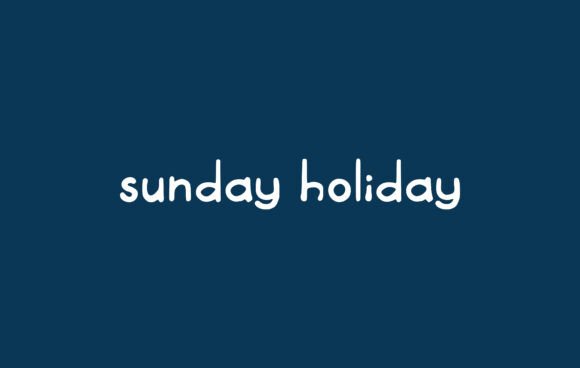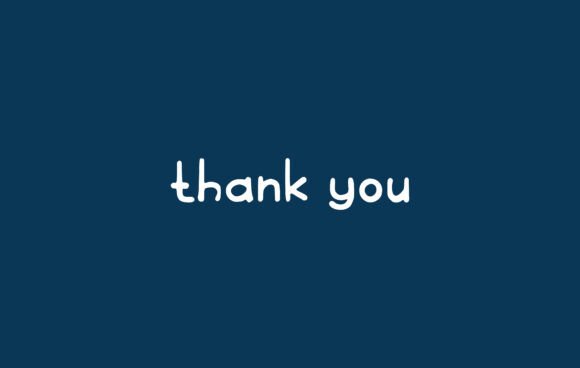
Hello Butterfly Font: Elevate Your Designs with a Romantic Touch
Are you looking for a font that can add a touch of romance and elegance to your designs? Look no further than the Hello Butterfly font. This authentic handwritten font is expertly designed to capture the hearts of designers and crafters alike. With its unique blend of sophistication and playfulness, Hello Butterfly font is sure to become a true favorite in your design arsenal.
What Makes Hello Butterfly Font Special?
Hello Butterfly font is more than just a beautiful font – it’s a design solution that can elevate your creative ideas to new heights. Here are just a few reasons why this font stands out:
- Romantic Touch: The Hello Butterfly font has a distinctly romantic feel that’s perfect for designs that require a touch of elegance and sophistication.
- Legibility: This font is not only beautiful, but also highly legible, making it perfect for use as both title and body text.
- Versatility: Hello Butterfly font is incredibly versatile, and can be used for a wide range of design projects, from magazine headlines and social media graphics to branding, wedding invitations, and more.
Design Possibilities with Hello Butterfly Font
The Hello Butterfly font is a designer’s dream come true. Its unique combination of romance and playfulness makes it perfect for a wide range of projects, including:
- Magazine Headlines: Add a touch of elegance to your magazine headlines with the Hello Butterfly font.
- Social Media Graphics: Create eye-catching social media graphics that stand out from the crowd with this beautiful font.
- Branding: Use the Hello Butterfly font to create a cohesive brand identity that’s both sophisticated and playful.
- Wedding Invitations: Make your wedding invitations truly special with the romantic and elegant Hello Butterfly font.
- Cards and Stationery: Add a personal touch to your cards and stationery with this beautiful handwritten font.
Why Choose Hello Butterfly Font?
With so many fonts to choose from, why should you choose Hello Butterfly font for your design projects? Here are just a few reasons:
- Unique Design: The Hello Butterfly font has a unique design that’s sure to set your designs apart from the crowd.
- High-Quality: This font is expertly designed to ensure that it looks great in any design project.
Tips for Using Hello Butterfly Font
To get the most out of the Hello Butterfly font, here are a few tips:
- Experiment with Colors: Try pairing the Hello Butterfly font with different colors to create a unique look that’s all your own.
- Play with Sizes: Experiment with different font sizes to create visual interest and hierarchy in your designs.
- Combine with Other Fonts: Try pairing the Hello Butterfly font with other fonts to create a unique and interesting design.
The Hello Butterfly font is a beautiful and versatile design solution that’s perfect for designers and crafters who want to add a touch of romance and elegance to their designs. With its unique blend of sophistication and playfulness, this font is sure to become a true favorite in your design arsenal. So why wait? Download the Hello Butterfly font today and start elevating your designs to new heights!